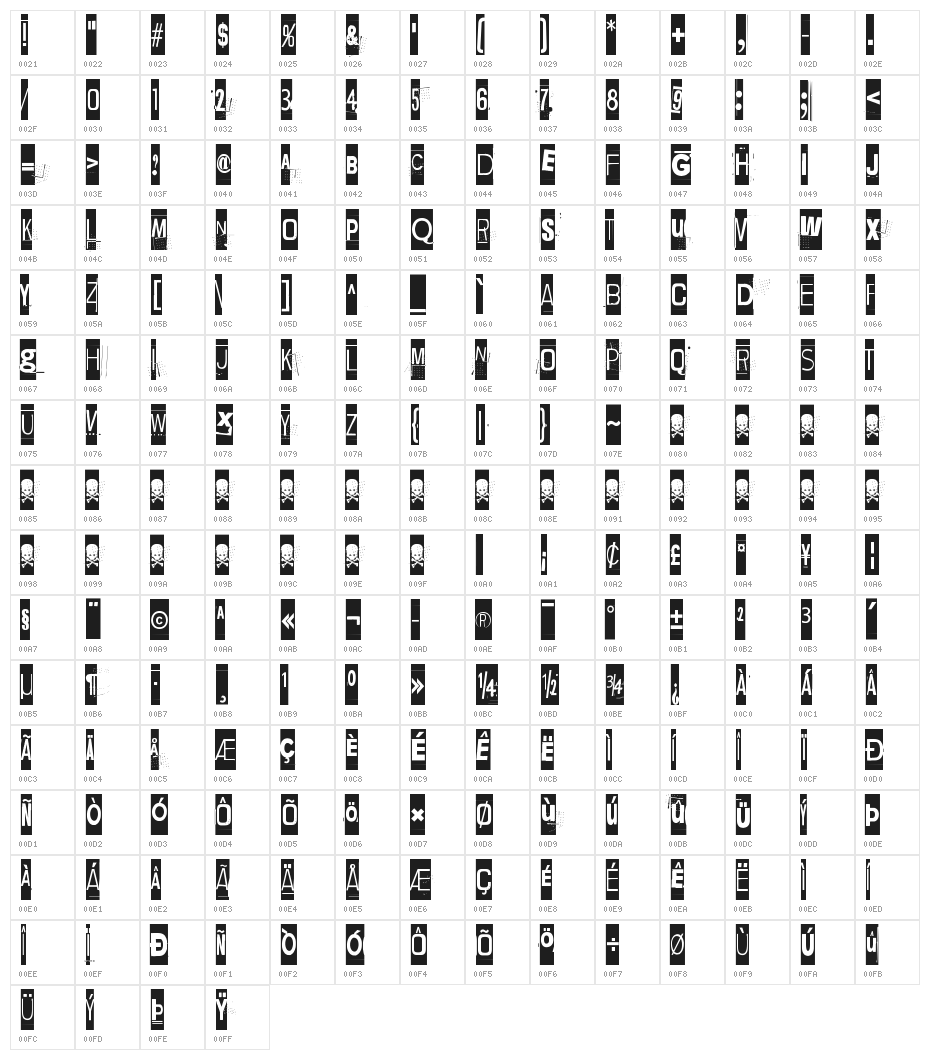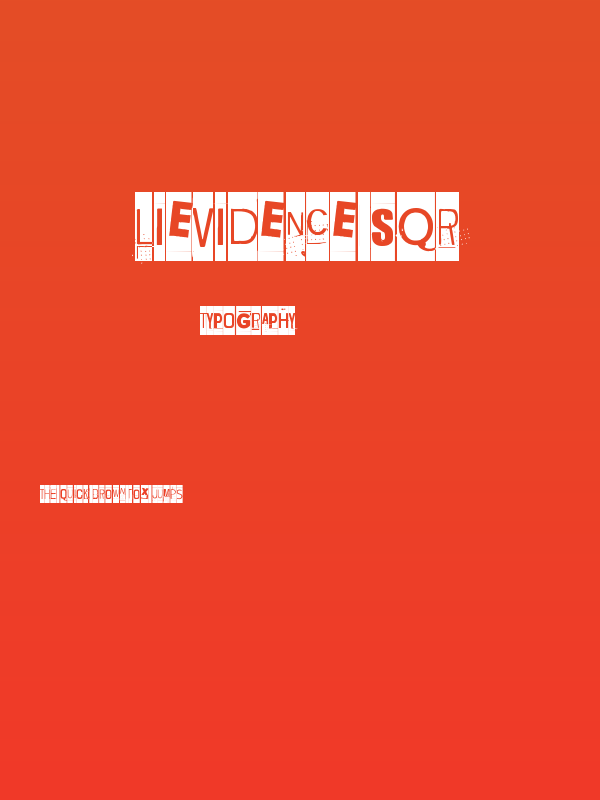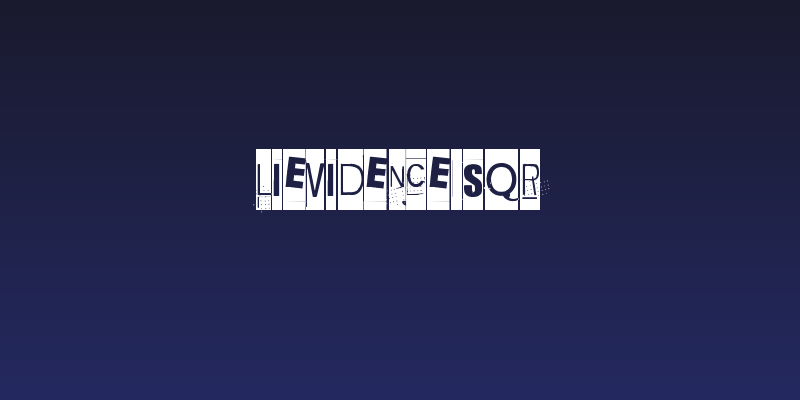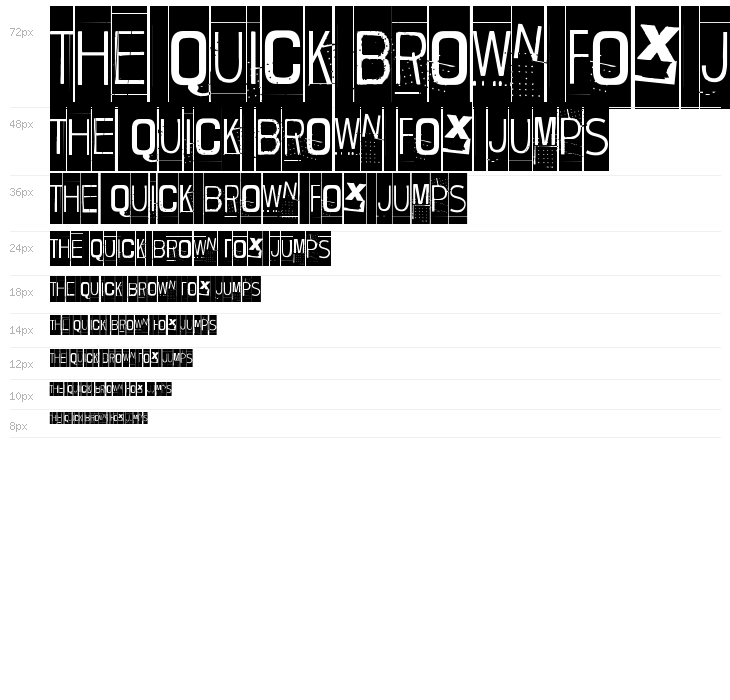
Lievidence SQR Font
Lievidence SQR Description
This font is a bold and eclectic display typeface that combines elements of ransom note style with a modern twist. Each character appears to be cut from different sources, creating a collage-like effect that is both chaotic and visually striking. The letters vary in size, weight, and style, with some characters featuring distressed textures and others appearing more clean-cut. This diversity in design gives the font a dynamic and unpredictable appearance, making it ideal for projects that require a sense of urgency or edginess. The font includes a full set of uppercase and lowercase letters, numbers, and a variety of special characters, ensuring versatility in its application.
| Overall Style | Modern, Chaotic |
| Use Case | Headlines, Posters, Album Covers |
| Proposed Projects | Ideal for edgy posters, album covers, magazine spreads, and any design needing a chaotic, eye-catching typeface. |